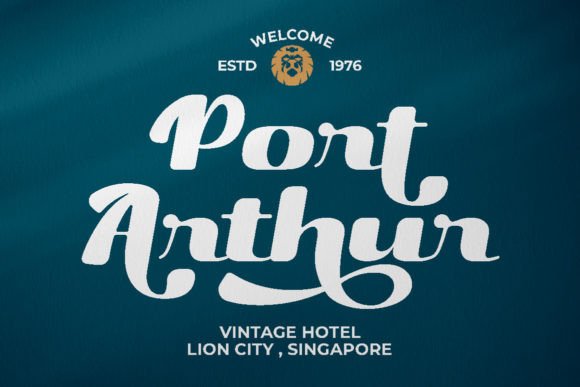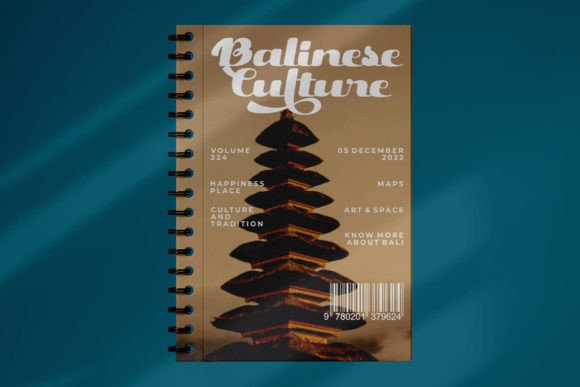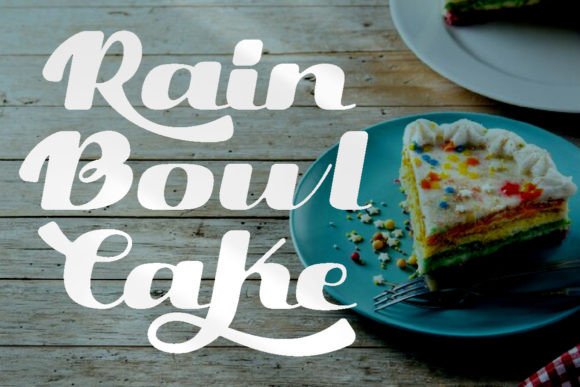
Introduction to Mad Murley Font
Have you ever stared at a blank canvas, wondering how to bring your creative project to life? The moment of truth, when your ideas finally take shape, is a thrill that every designer knows and loves. And for those seeking a high-quality font that adds a touch of personality to their designs, we’re excited to introduce the Mad Murley Font.
This bold script font is more than just a design resource – it’s a game-changer. With its unique style and elegant flair, Mad Murley Font is perfect for designers looking to elevate their projects and make them truly stand out. Whether you’re working on a branding project, packaging design, or social media graphics, this font is sure to make your designs pop. And the best part? You can download the Mad Murley Font for free, complete with transparent background and all the features you need to customize your designs.
Key Features of Mad Murley Font
- The Mad Murley Font is a high-quality design resource ideal for creative projects, offering a unique and quirky aesthetic.
- The font’s unique characteristics include its bold, playful lines and expressive letterforms, making it perfect for adding a touch of whimsy to any design project.
Honest Review: Mad Murley Font
As a designer, I’m always on the lookout for unique and high-quality fonts to elevate my creative projects. Recently, I stumbled upon the Mad Murley Font, and I must say it’s a fantastic addition to my design resource collection.
What works well is the font’s bold and quirky personality, which adds a touch of whimsy to any design. The free download option is also a major plus, making it easily accessible to designers of all levels. The transparent background feature allows for seamless integration into various design elements.
- ✨ Unique and bold personality
However, I do have some minor complaints. The font can be a bit overbearing in larger text sizes, and it may not be the best choice for formal or professional projects. Additionally, the font family is relatively small, with only a few weights and styles available.
Overall, I’m impressed with the Mad Murley Font, and I’d definitely recommend it for creative projects that require a bold and playful touch. Just be mindful of the potential limitations, and use it wisely.
- ⚠️ May be overwhelming in larger text sizes
- ⚠️ Limited font family
The Mad Murley Font is a high-quality design resource perfect for creative projects. With a free download available, it’s an excellent addition to any designer’s toolkit.
Tips for Getting the Most Out of Mad Murley Font
For the best results, use the Mad Murley Font on a transparent background to ensure it stands out in your design. You can also experiment with different font sizes and styles to add depth and interest to your project.
The Mad Murley Font is ideal for a variety of design projects, including logos, brochures, posters, and social media graphics. Its unique design makes it perfect for creative and eye-catching projects.